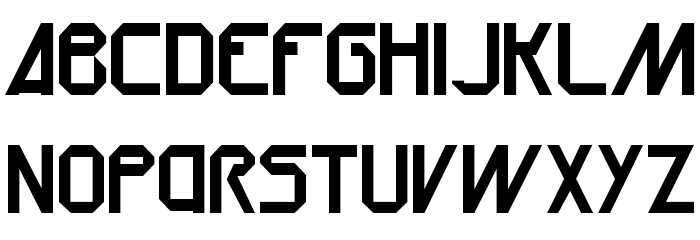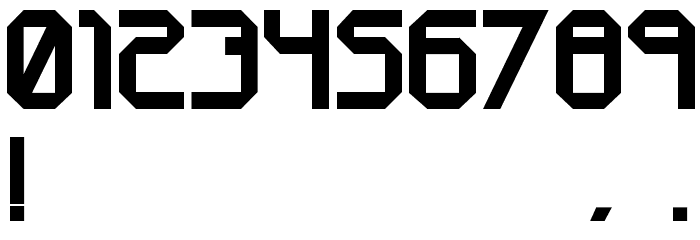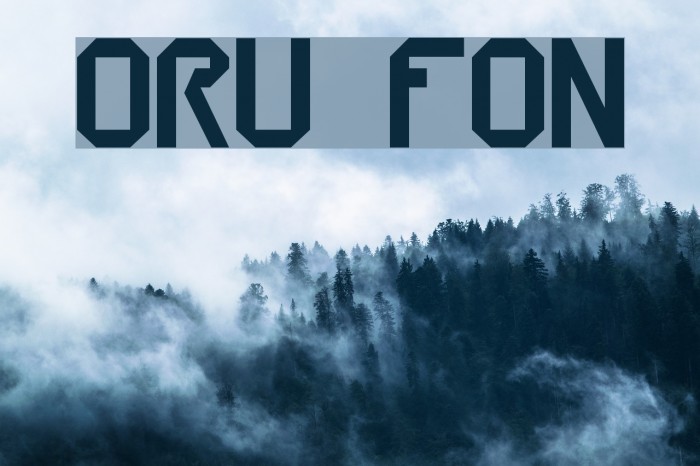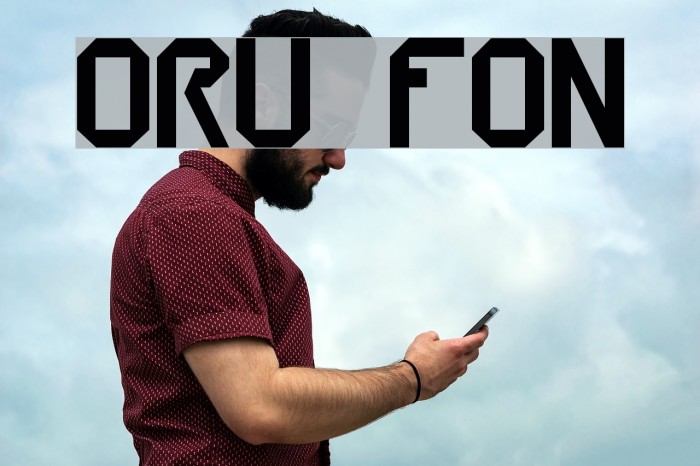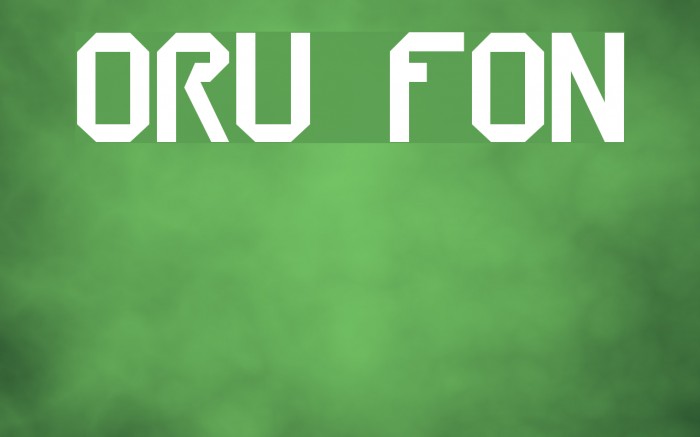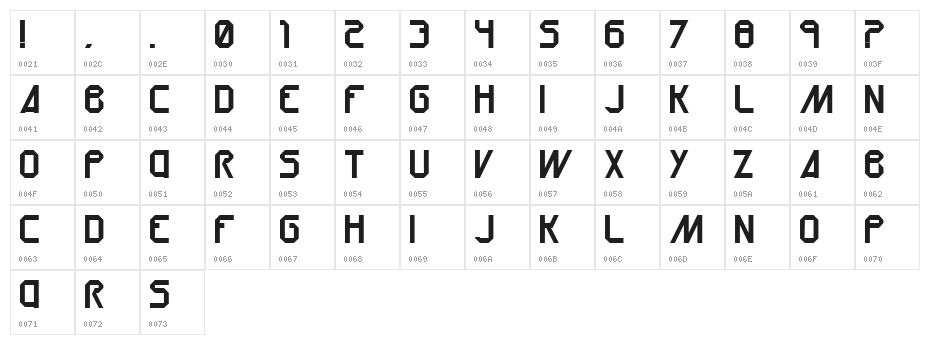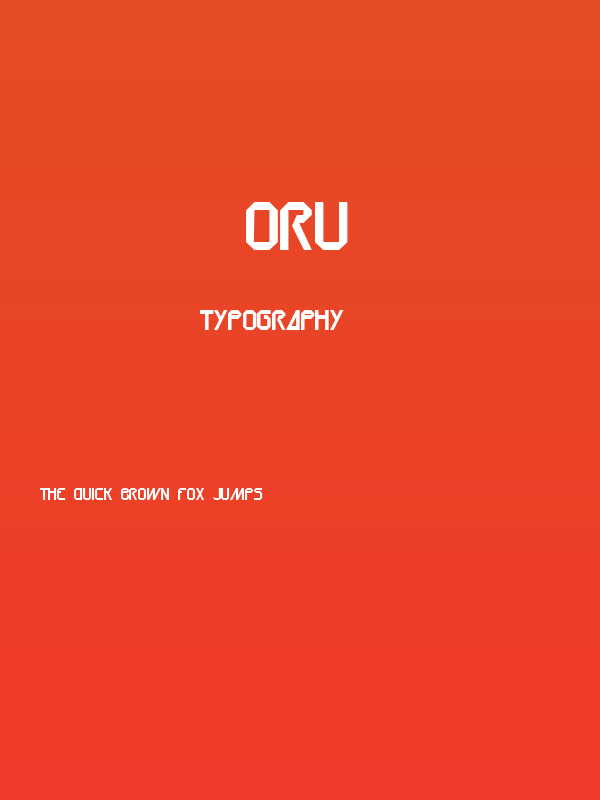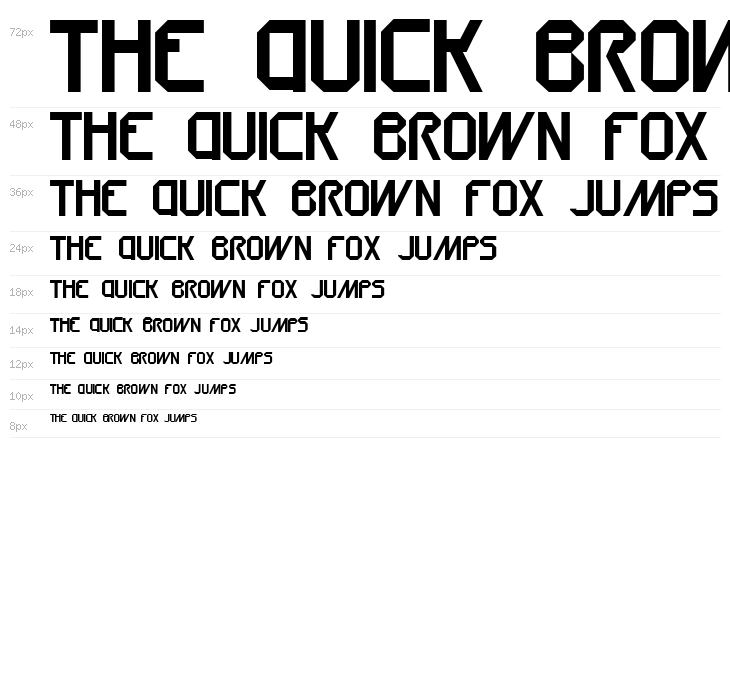
ORU Font
This font features a bold, geometric design with sharp angles and a futuristic aesthetic. The characters are constructed with a consistent stroke width, creating a uniform and cohesive appearance. The uppercase letters are particularly striking, with a blocky and angular style that conveys strength and modernity. The numbers and special characters maintain this bold and structured look, ensuring readability and impact. This font is ideal for projects that require a strong visual presence and a contemporary feel.
- Proposed Projects: Ideal for branding, posters, video game titles, and any project needing a modern, impactful typeface.